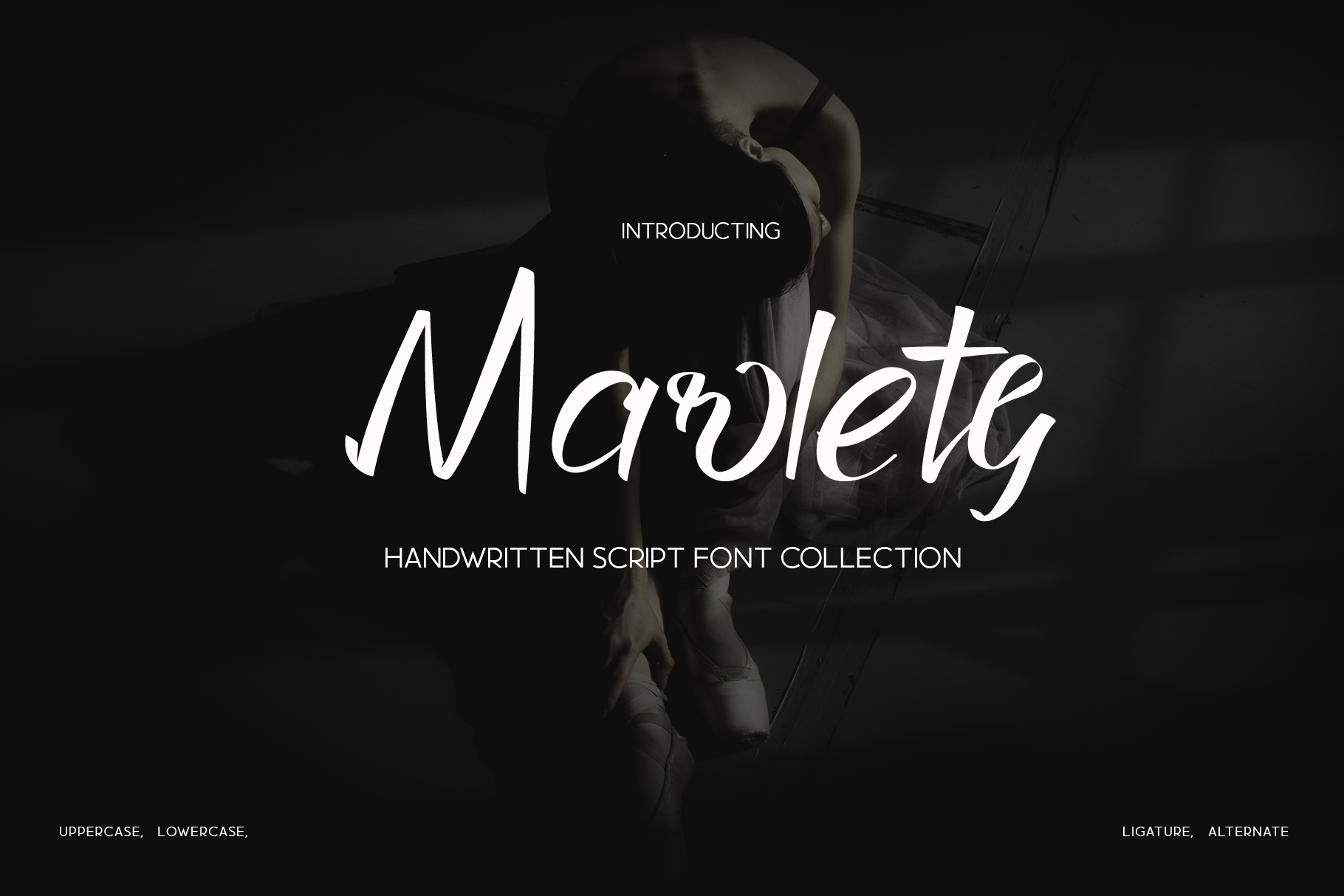
Marlety - Beauty Handwritten Font
Introducing Marlety, an elegant, beauty, and simple handwritten font. Its unique and lovely feel. So perfect for you who needs a typeface for logo designs, magazine, social media, brochure, and many more.
- Beauty alternate & ligature of g, tr, r, y